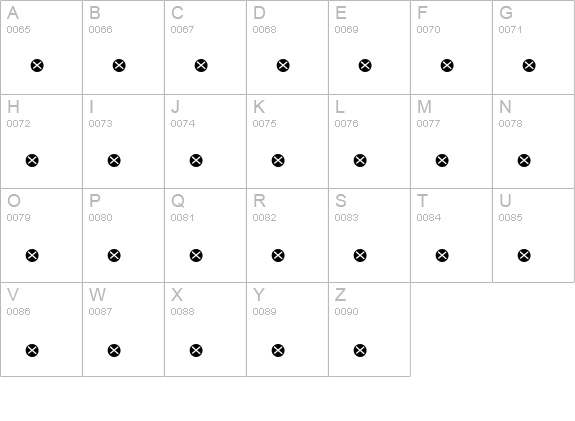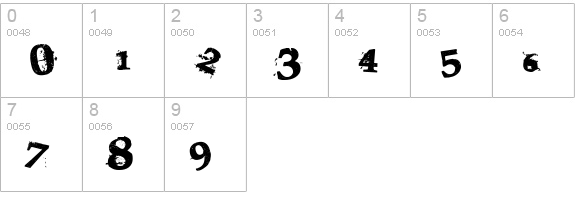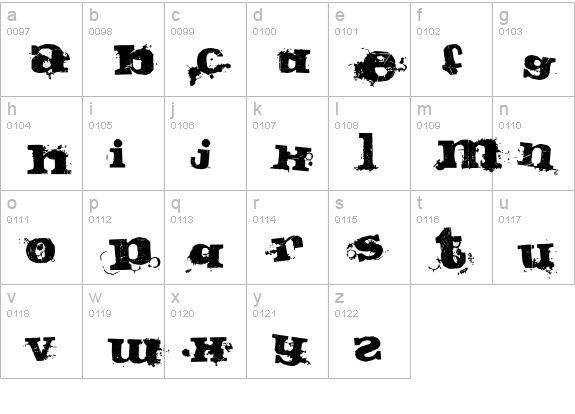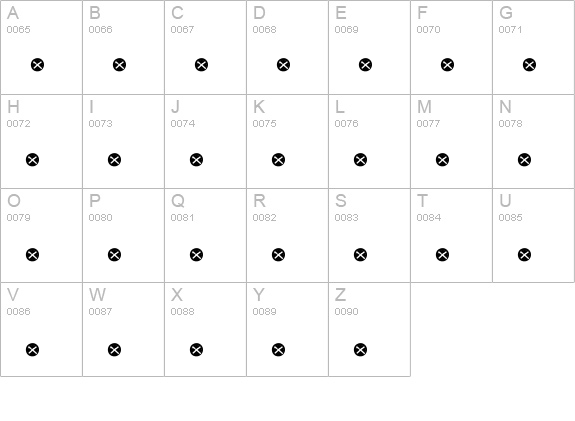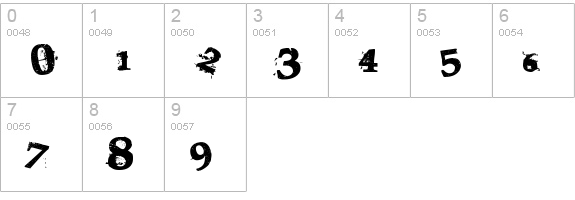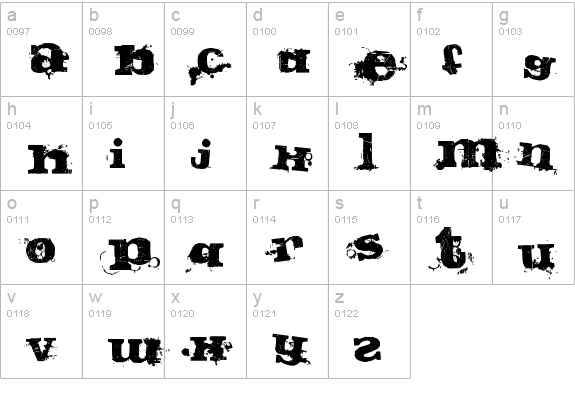
Guilty Font Details
Guilty font is a striking and bold typeface that exudes a sense of mystery and intrigue. With its sharp angles and edgy aesthetic, this font is perfect for creating eye-catching designs that make a statement. Whether you're working on a poster, logo, or branding project, Guilty font is sure to capture attention and make your message stand out. The best part? Guilty font is completely free to download at FontsMarket.com. This means you can easily add this unique and powerful font to your collection without any cost. Don't miss out on the opportunity to elevate your designs with Guilty font, available for free download now.